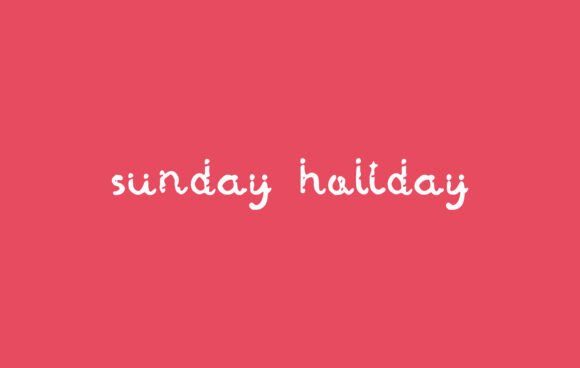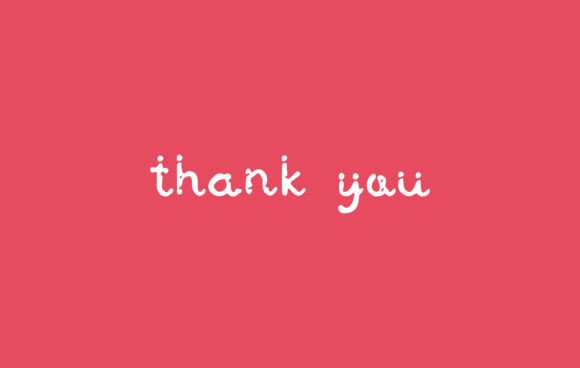
Discover the Charm of Grady Font: Elevate Your Designs with a Romantic Touch
In the world of typography, a font can make all the difference in bringing your creative vision to life. If you’re on the hunt for a typeface that exudes warmth, elegance, and a touch of romance, look no further than the Grady Font. This authentic handwritten font is designed to capture the hearts of designers and crafters alike, offering a versatile and legible solution for a wide range of projects.
The Essence of Grady Font
Grady Font is an expertly crafted handwritten font that boasts a romantic touch, perfect for adding a personal and emotional flair to your designs. Its authentic feel makes it an excellent choice for those seeking to infuse their work with a sense of nostalgia and charm. Whether you’re working on a magazine headline, social media post, branding materials, or wedding invitation, Grady Font is sure to impress.
Key Features of Grady Font
- Legibility: One of the standout features of Grady Font is its exceptional legibility. This makes it an excellent choice for both title and body text, ensuring that your message is conveyed clearly and effectively.
- Versatility: From digital platforms to print materials, Grady Font adapts seamlessly across various mediums. Its flexibility allows you to use it in a multitude of design projects, including but not limited to:
- Magazine headlines and articles
- Branding and logo designs
- Wedding invitations and cards
- Personal and business stationery
- Romantic and Authentic Feel: The font’s romantic and authentic feel sets it apart, offering a unique aesthetic that’s hard to replicate with more generic typefaces. This makes it particularly well-suited for projects where you want to evoke an emotional response or create a lasting impression.
Why Choose Grady Font?
With so many fonts available, what makes Grady Font a preferred choice for designers and crafters? The answer lies in its ability to balance elegance with approachability. Grady Font isn’t just about aesthetics; it’s about creating a connection with your audience. Its readability ensures that your message is front and center, while its style adds a layer of sophistication and charm.
Tips for Using Grady Font Effectively
To make the most of Grady Font, consider the following tips:
- Mix and Match: Don’t be afraid to experiment by pairing Grady Font with other typefaces. A contrasting font for headings and Grady for body text can create a visually appealing hierarchy.
- Adjust Size and Weight: Play with the size and weight of Grady Font to add emphasis and create visual interest in your designs.
- Color Matters: Choose colors that complement the romantic and authentic feel of Grady Font. Soft pastels, rich tones, and classic black and white can all work beautifully.
Grady Font is more than just a typeface; it’s a tool for bringing your creative ideas to life with a romantic touch. Its legibility, versatility, and authentic feel make it an invaluable asset for designers and crafters looking to elevate their projects. Whether you’re aiming to create stunning magazine headlines, captivating social media content, or beautiful wedding invitations, Grady Font is sure to exceed your expectations. So why wait? Discover the charm of Grady Font today and take your designs to new heights.